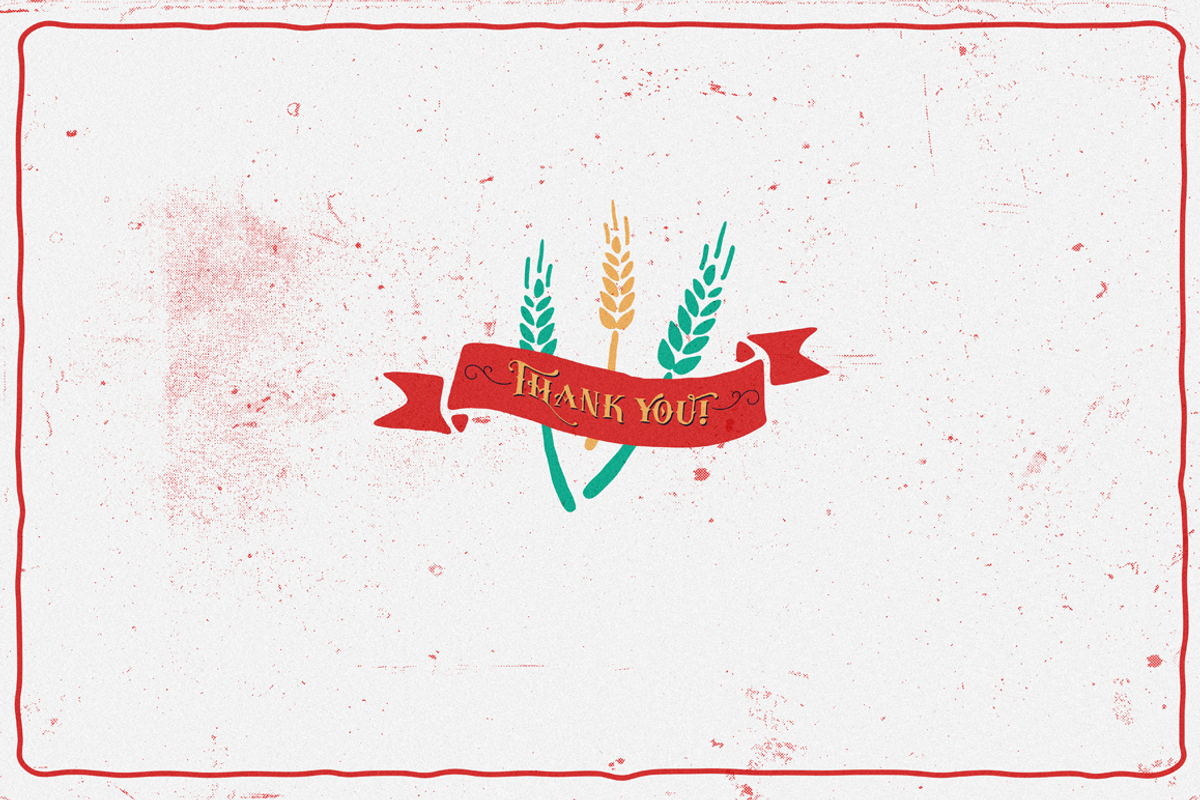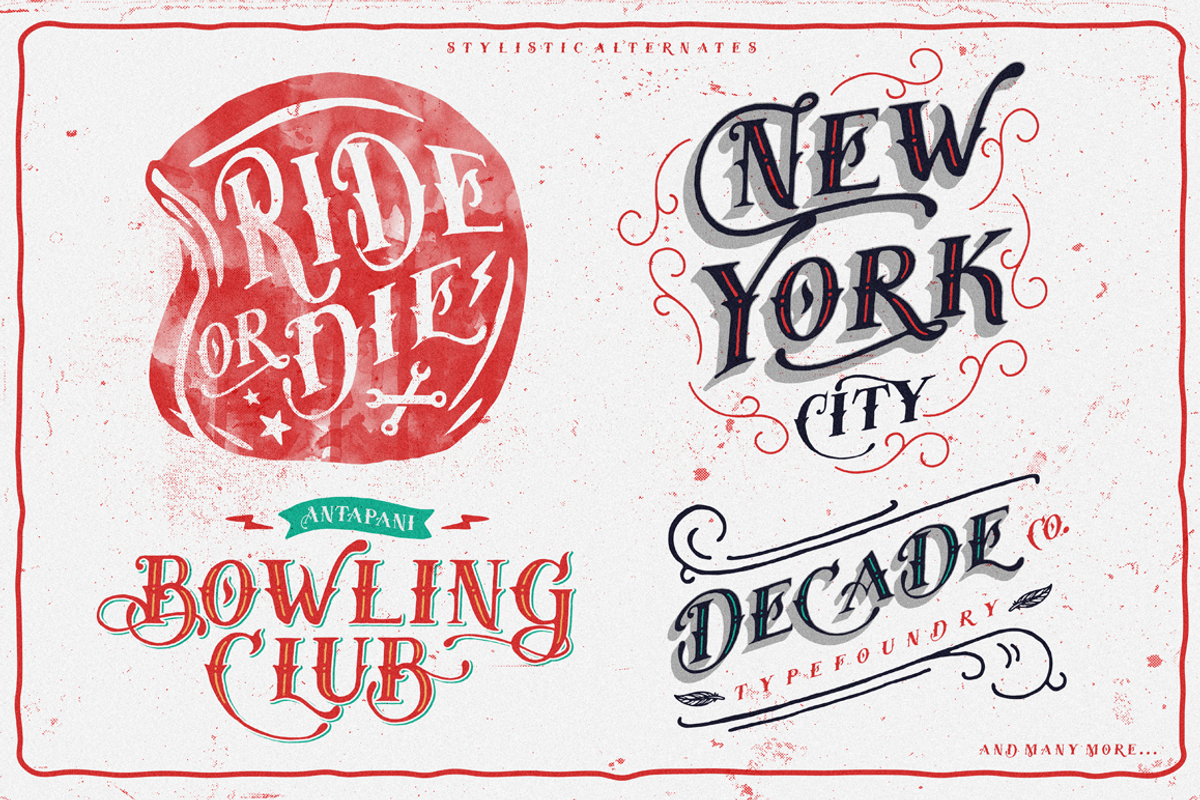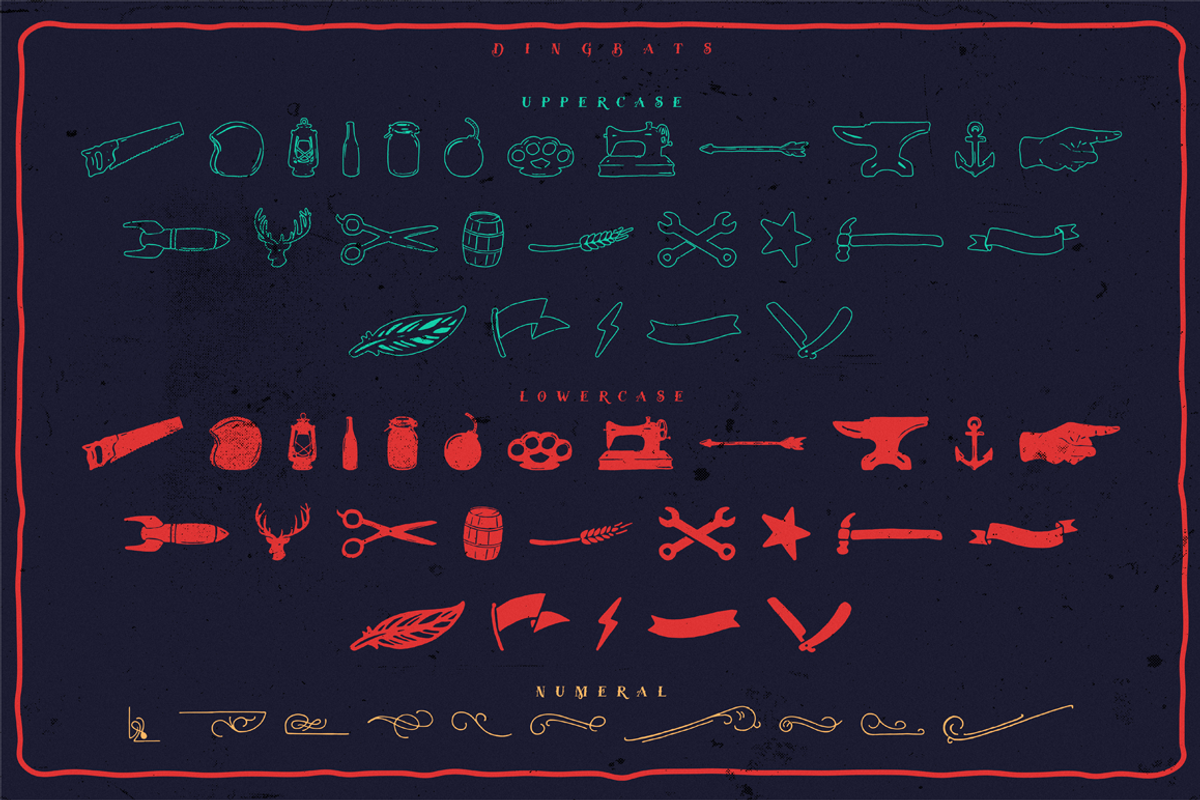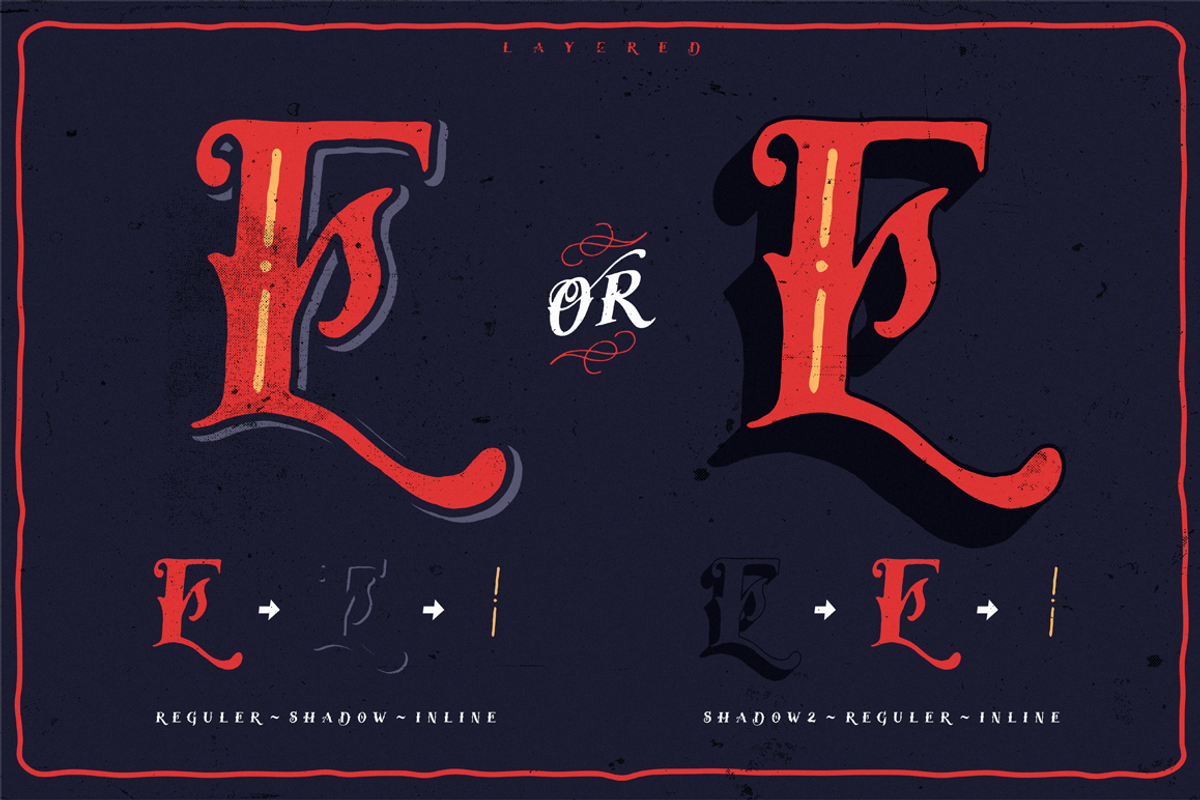
Tervia Font Family
Tervia Font Family by Alternate Studio is a font selected for branding, posters, packaging, typography.
- Tervia Family font also includes extended characters for multilingual support.
- Just play with the stylistic alternates using common Open-Type Features supported software and application and get the classic, fun, cool ye
- Tervia Extra
- Tervia Regular
- Tervia Inline
- Tervia Shadow
- Tervia Shadow2
Tervia Font Family by Alternate Studio fits naturally into Branding, posters, packaging, typography.